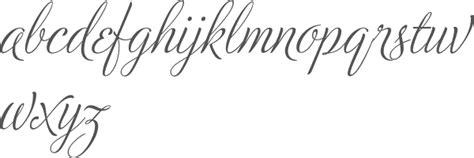
Adios Script Pro Font Free / Adios Script Pro | Webfont & Desktop font | MyFonts - 0 free adios script pro fonts and 1 sponsored font available · 1001 fonts is your favorite site for free fonts since 2001.. Please research the license information before using it. Adios script pro font is probably one of the most refined and sophisticated typefaces. Please enter your email address receive a free font daily from fonts101.com in your email! Here are some fonts similar to adios script. Uploaded by nielson caetano (1 styles).
Caviar dreams adios script pro. Adios script pro font otf | 239 kb. Adios script pro font is probably one of the most refined and sophisticated typefaces. Romantic, decorative adios script is one of alejandro paul's most elaborate and technically refined faces to date. Credits belong to the creator.
Caviar dreams adios script pro. Adios script pro font is probably one of the most refined and sophisticated typefaces. Script is a product of micrologic software, inc. Hipster script pro font for $79 hipster script pro font hipster script is another of my habitual attempts at trying to reduce the divide between manual and digital. Here are some fonts similar to adios script. Uploaded by nielson caetano (1 styles). Similar fonts for adios script pro from myfonts.com. Adios script pro font otf | 239 kb. Главная страница » шрифты » adios script pro font. Tusker grotesk font family free download. $ free > personal use. Adios script pro font is probably one of the most refined and sophisticated typefaces. As well, you are going to love our website and what we can provide.
Romantic, decorative adios script is one of alejandro paul's most elaborate and technically refined faces to date. Registering is fast, easy and free. $ free > personal use. Please research the license information before using it. If you want to create professional printout, you should consider a commercial font. Adios script pro font is probably one of the most refined and sophisticated typefaces. Designed by alejandro paul in 2009. You can download the adios script pro font to your computer or use it on your website. Uploaded by nielson caetano (1 styles). Adios script pro font is probably one of the most refined and sophisticated typefaces. Use this font in your own documents with a free 5 minute trial through skyfonts. Next articleunblessed script font free download. Here are some fonts similar to adios script.